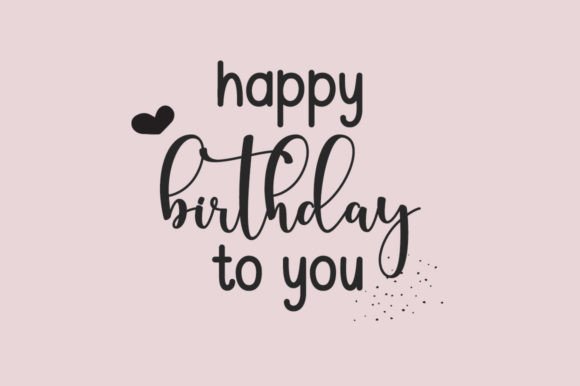
Happy Diary is a lovely, chic, and delicate duo font (sans serif and script). Fall in love with its incredibly versatile style, and use it to create spectacular designs! This font is PUA encoded, which means you can access all of the glyphs and swashes with ease!
Happy Diary Font